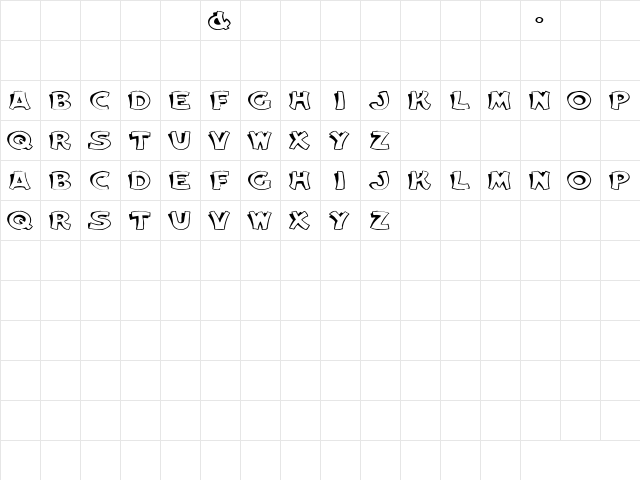
Cartoon Slant 5 Regular
Design Context for Cartoon Slant 5 Typeface
Cartoon Slant 5 has an approachable, lighthearted character — its loose, expressive forms are well-suited to children's content, casual branding, and fun-first design.
Font Pairing: Pairs well with a rounded or humanist sans for body copy, maintaining the friendly tone without relying on Cartoon Slant 5 to carry extended reading.
Pro Tip: Avoid using Cartoon Slant 5 for long passages of text — it works best for headlines, labels, and short calls to action.